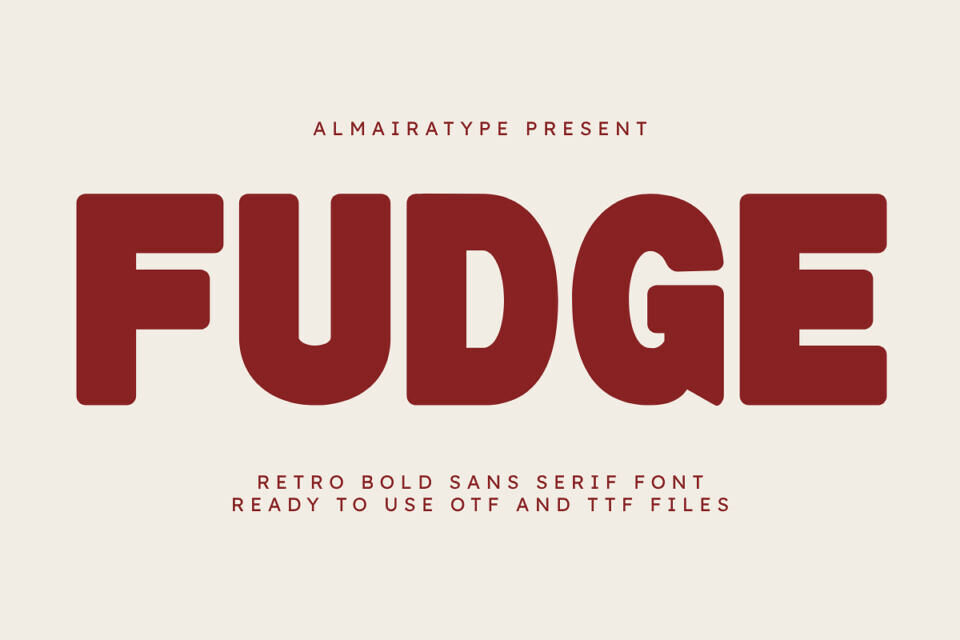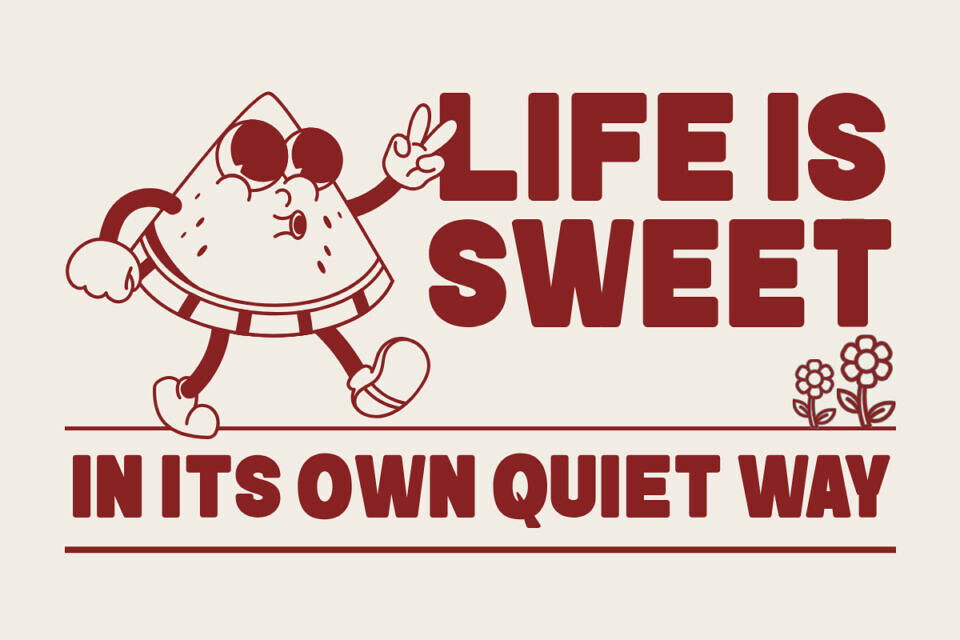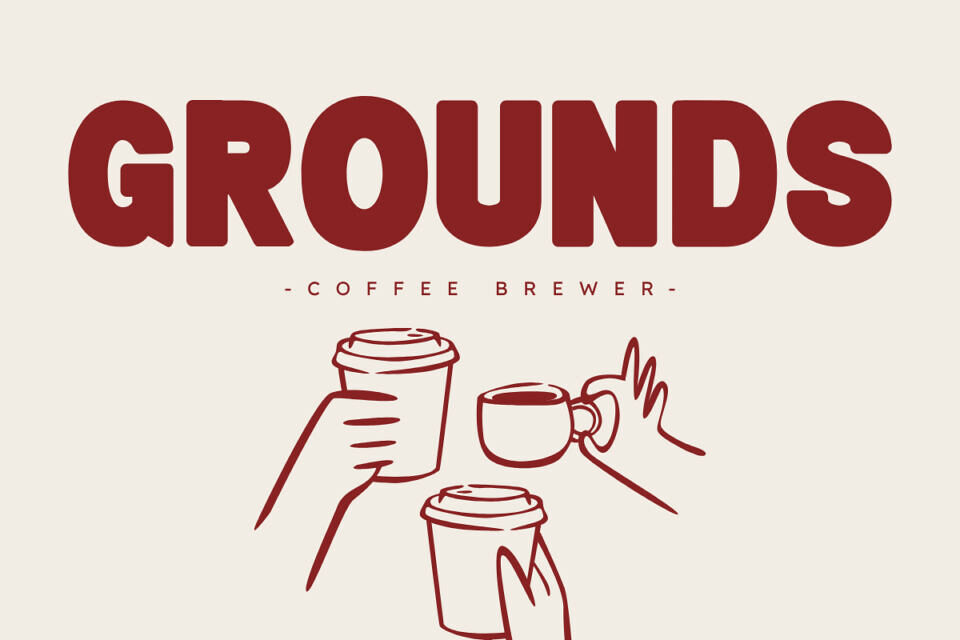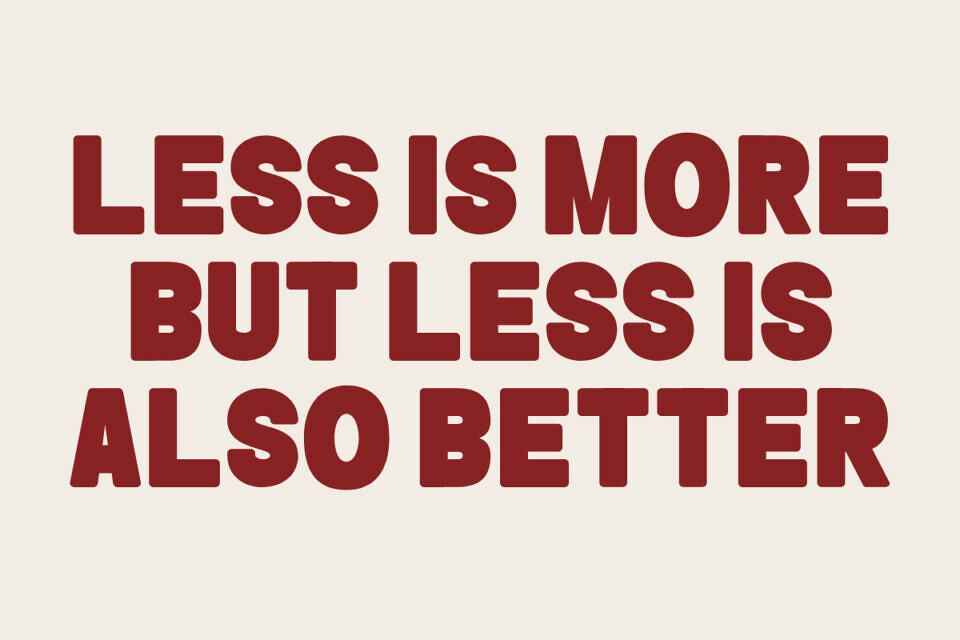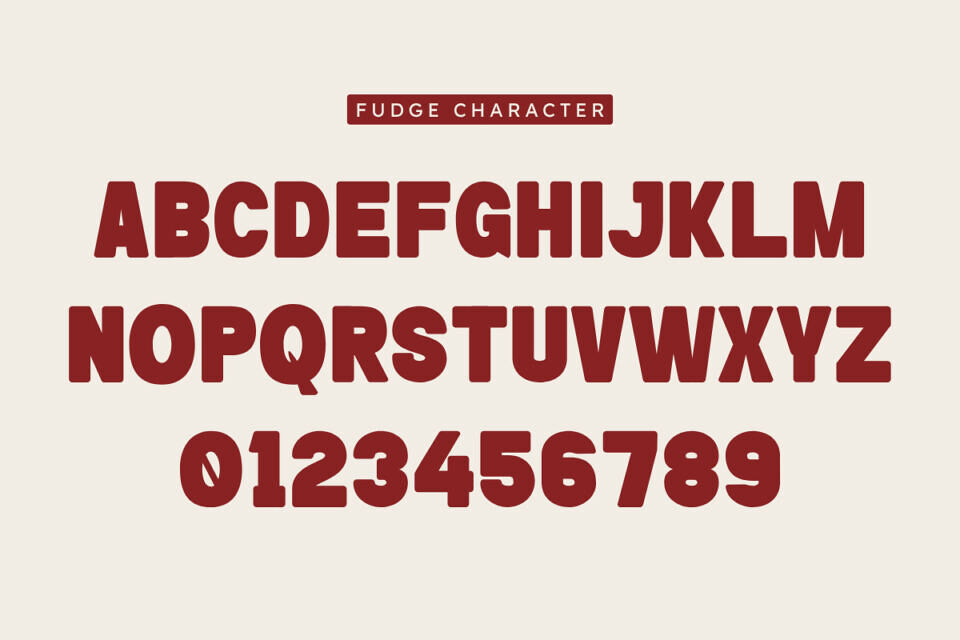
Fudge is a bold retro sans serif font uniquely designed to deliver a rich warmth and high-impact vintage aesthetic to your modern creative projects. Featuring a robust, heavy weight structural alignment and friendly rounded geometric contours, this typeface beautifully bridges the gap between classic 70s nostalgia and contemporary commercial design trends.
Whether you are building an eye-catching brand identity, designing trendy streetwear t-shirt lines, customizing unique packaging layouts, or producing striking social media posters, Fudge ensures maximum readability and a distinct professional edge.